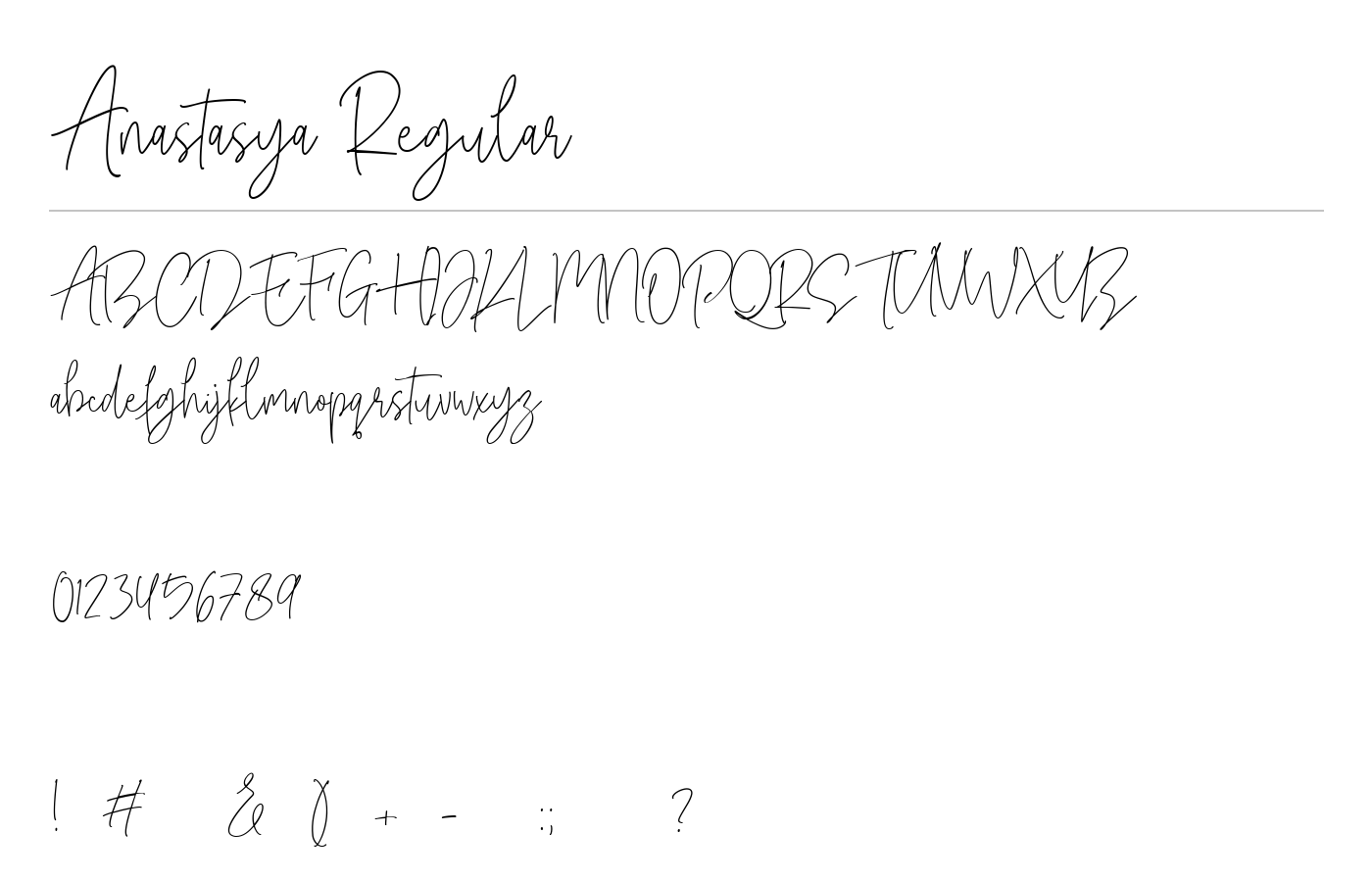
Anastasya is a delicate handwritten script font characterized by its slender, flowing lines and elegant, airy feel. Its tall x-height and fine strokes give it a modern yet personal touch, making it ideal for invitations, branding, and creative projects that seek a stylish, intimate vibe. This font works beautifully where a soft, sophisticated, and approachable look is desired.
Anastasya Font
About Anastasya Font